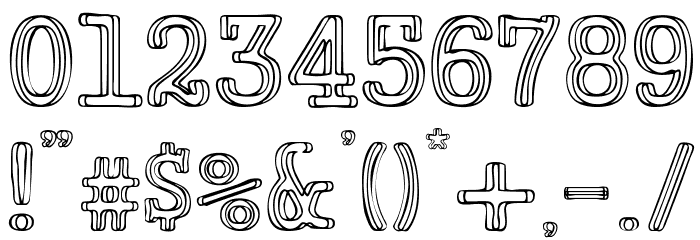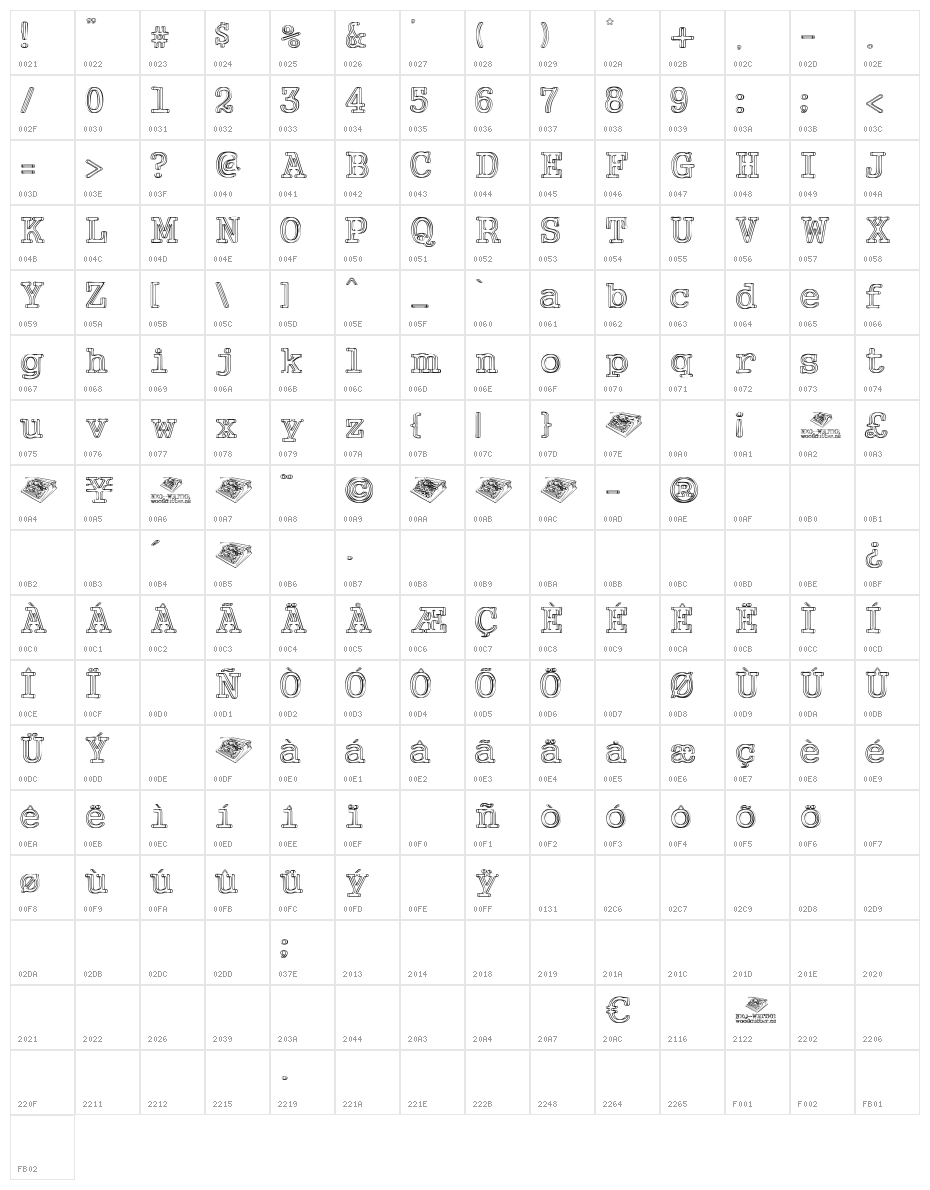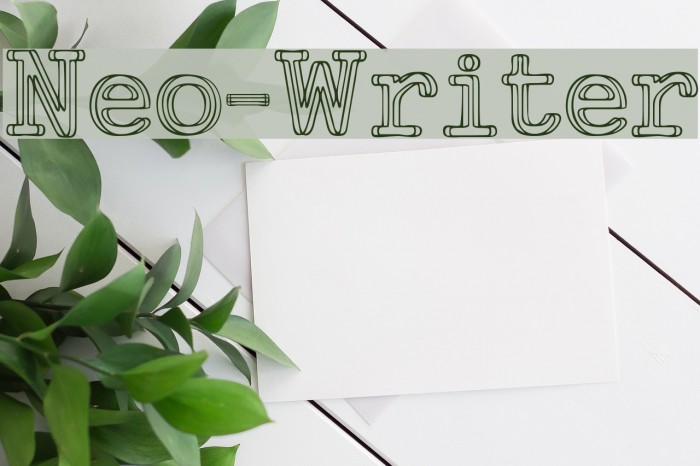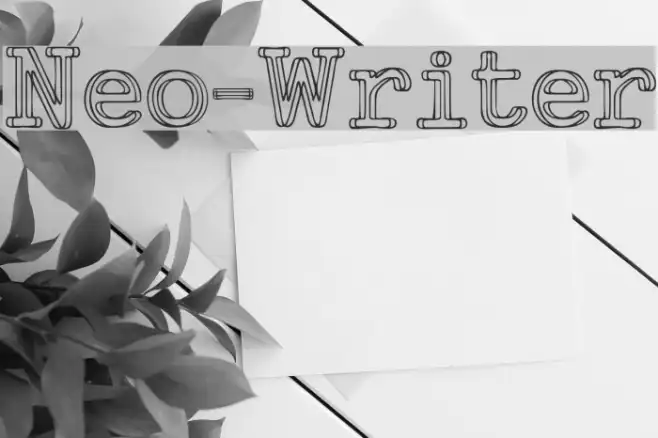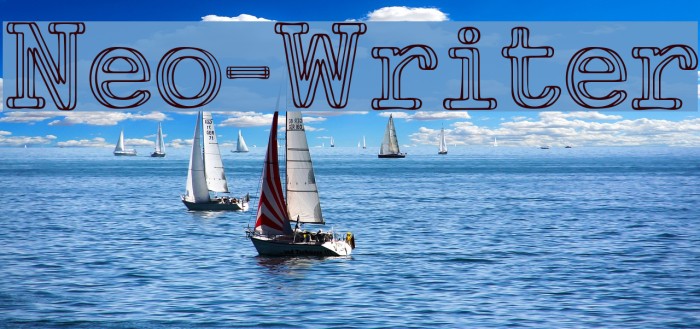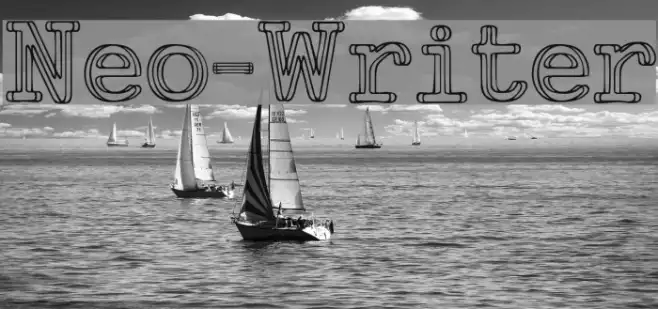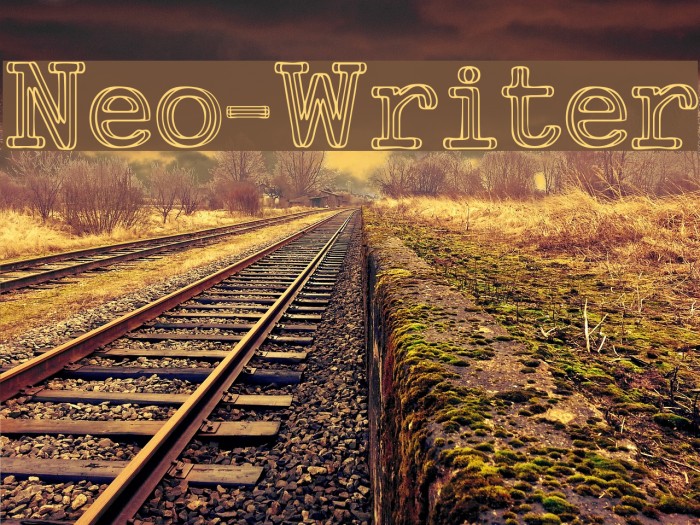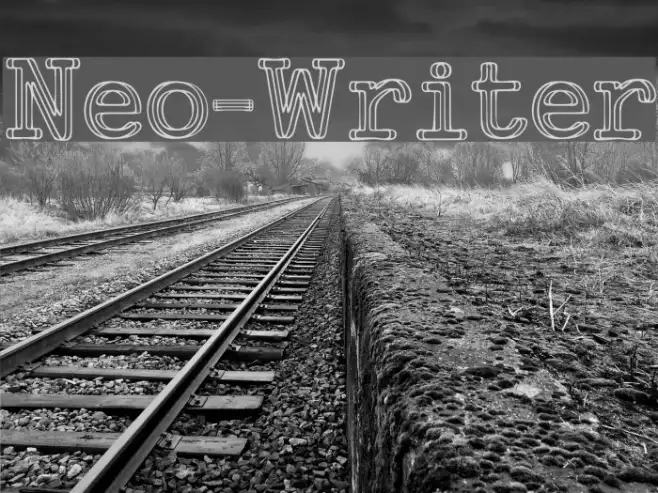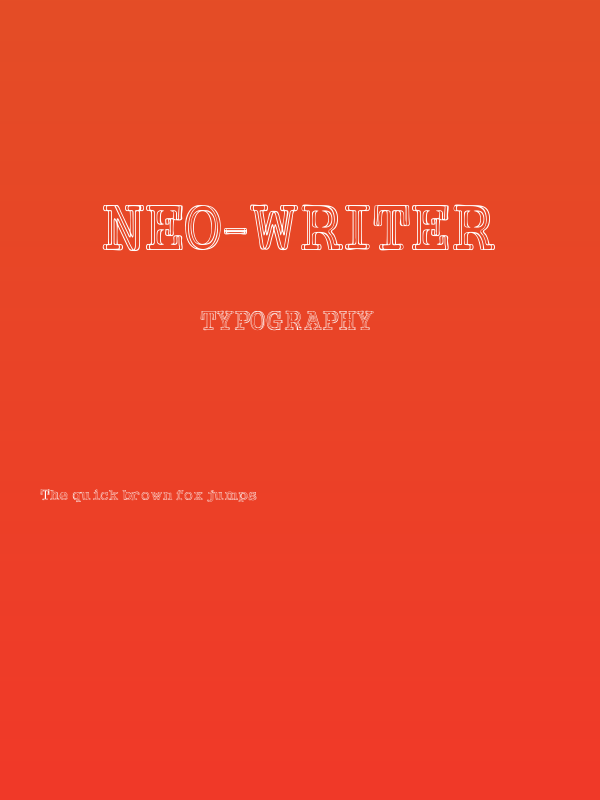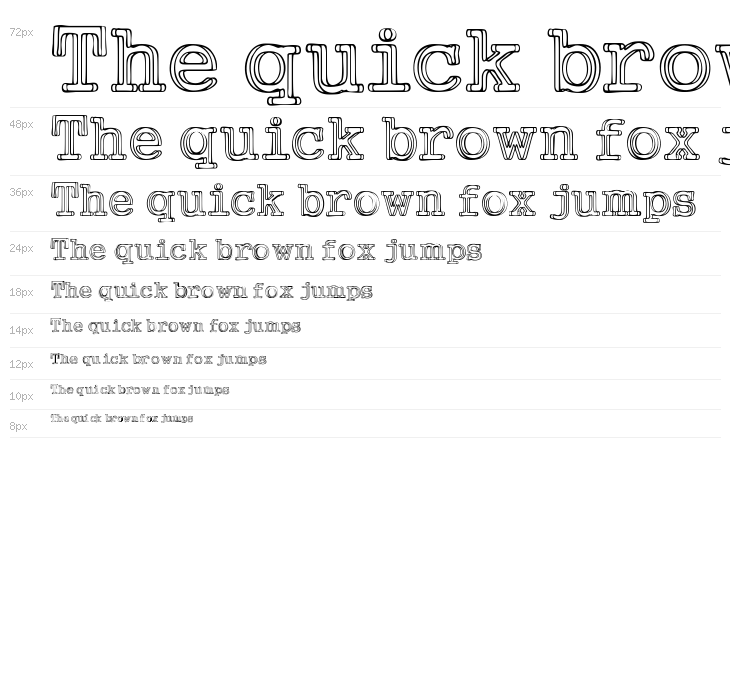
Neo-Writer Font
Neo-Writer Description
This font features a bold, decorative style with a double-line outline that gives it a dimensional, layered appearance. The characters are uppercase and lowercase letters, numbers, and a variety of special symbols. Each character is designed with a consistent thickness, providing a uniform look across the entire set. The font has a playful and eye-catching aesthetic, making it suitable for creative and artistic projects. Its unique design is ideal for capturing attention and adding a distinctive flair to any text.